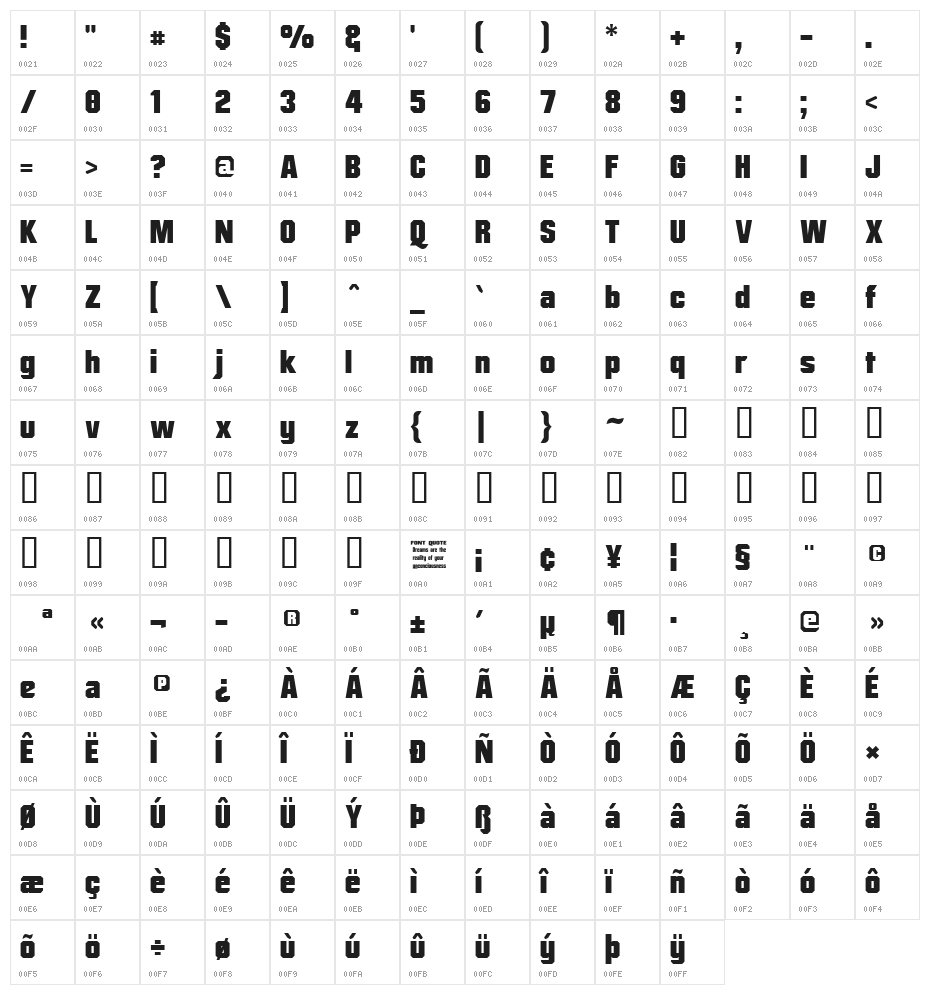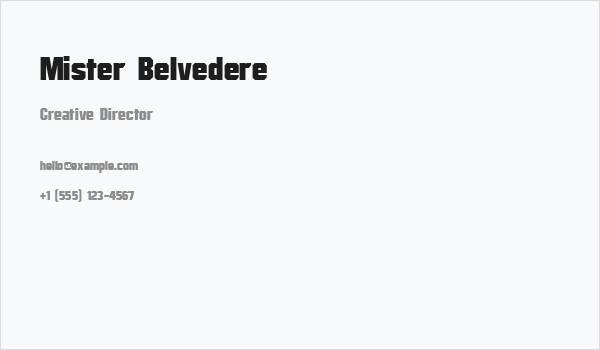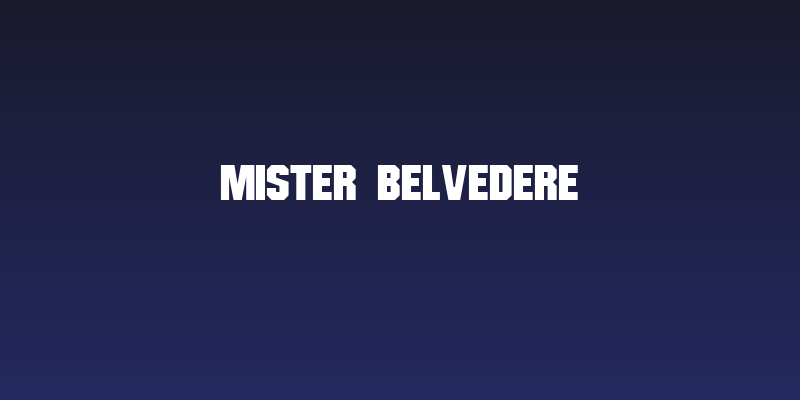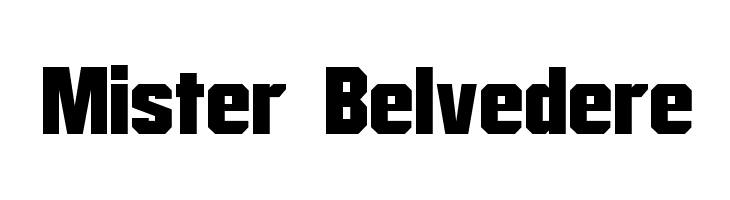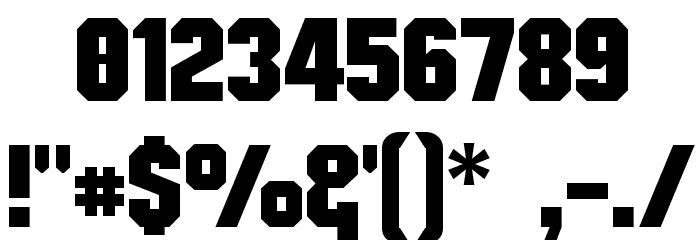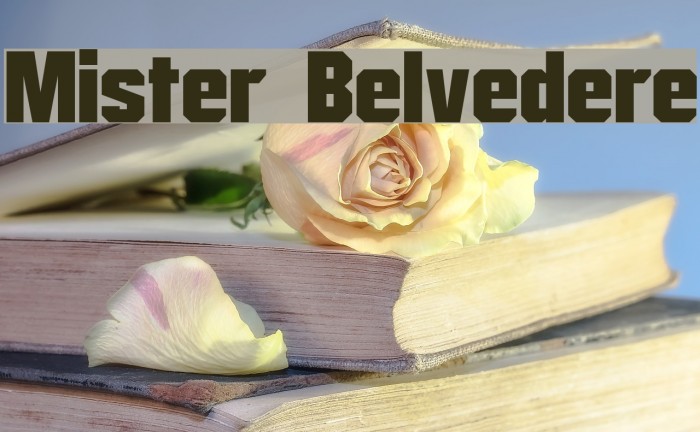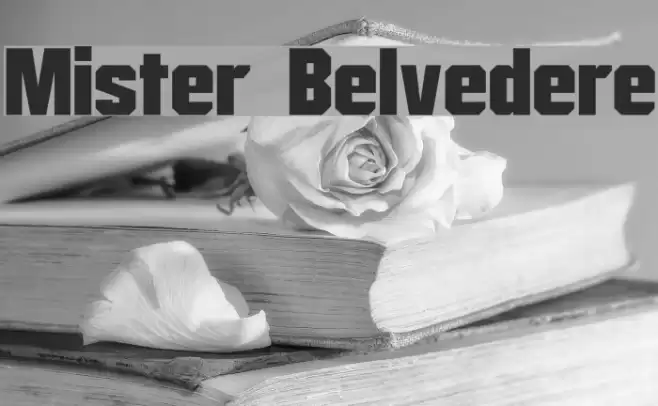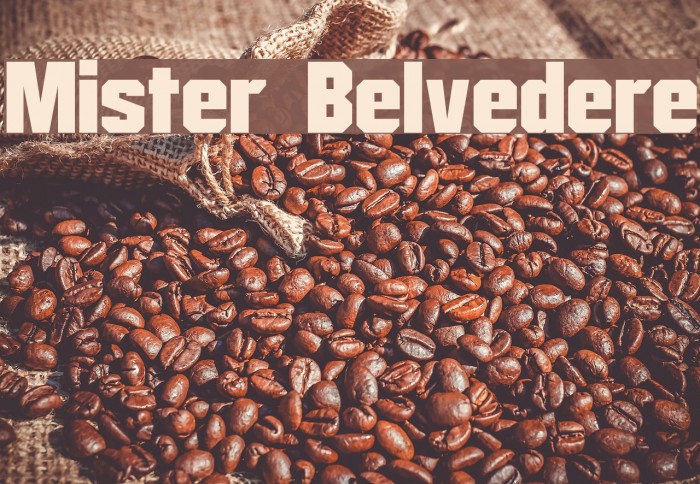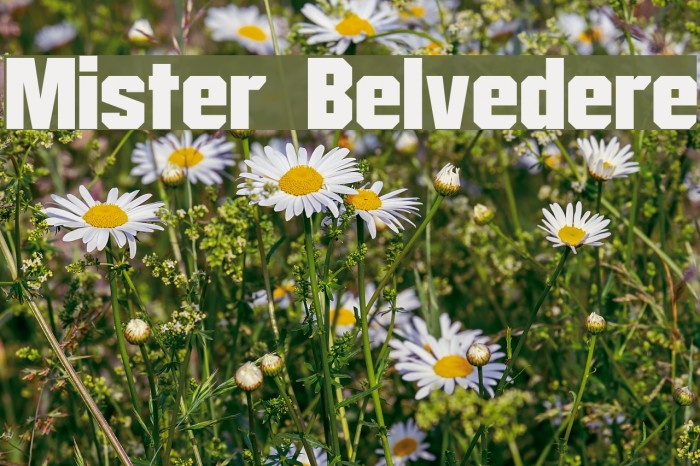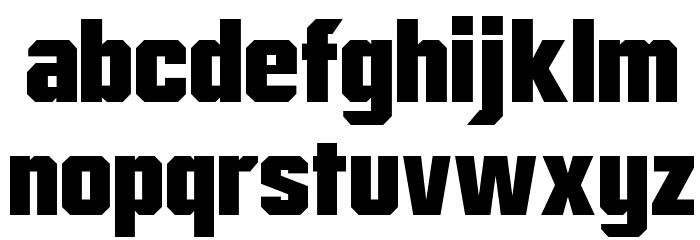
Mister Belvedere Font
Mister Belvedere Description
This font features a bold and impactful design with strong geometric shapes and sharp angles. The uppercase and lowercase letters maintain a consistent weight, providing a uniform appearance. The numerals and special characters are designed with the same boldness, ensuring readability and emphasis. The font's style is reminiscent of vintage athletic or collegiate typefaces, making it suitable for projects that require a strong, assertive presence. Its thick strokes and blocky structure make it ideal for headlines and titles where attention is paramount.
| Overall Style | Vintage |
| Proposed Projects | This font is perfect for sports branding, posters, logos, and any design requiring a bold statement. |